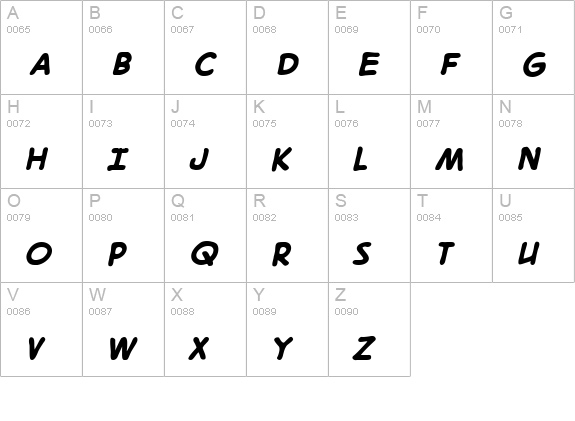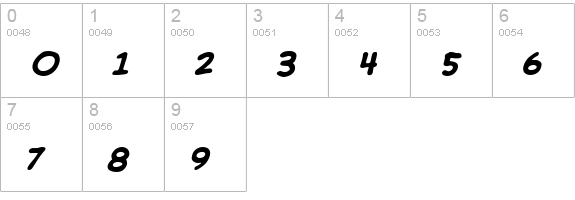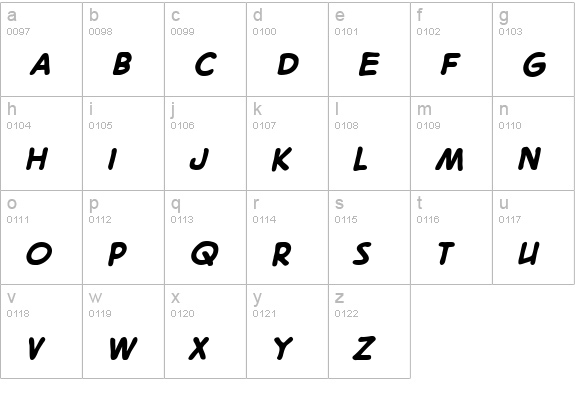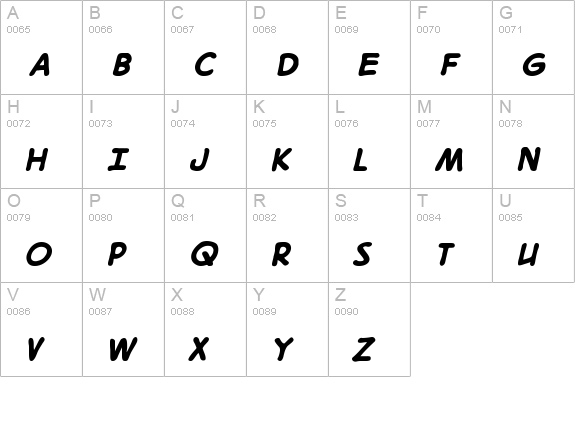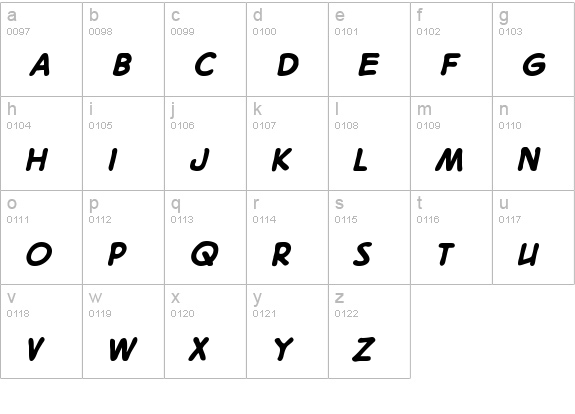
DigitalStrip 2.0 BB Bold Font Details
DigitalStrip 2.0 BB Bold is a strong, high-contrast variant in the DigitalStrip typeface family \xE2\x80\x94 well suited to headlines, attention-grabbing titles, and strong calls-to-action.
DigitalStrip 2.0 BB Bold font is a modern and stylish typeface that exudes confidence and sophistication. Its bold and striking design makes it perfect for creating impactful headlines and attention-grabbing graphic designs. This versatile font is sure to make your projects stand out and leave a lasting impression. And the best part is, DigitalStrip 2.0 BB Bold font is available for free download at FontsMarket.com. So, whether you're working on a professional project or simply want to add a touch of boldness to your personal designs, this font is a must-have in your collection. Download it now and unleash your creativity with DigitalStrip 2.0 BB Bold font.